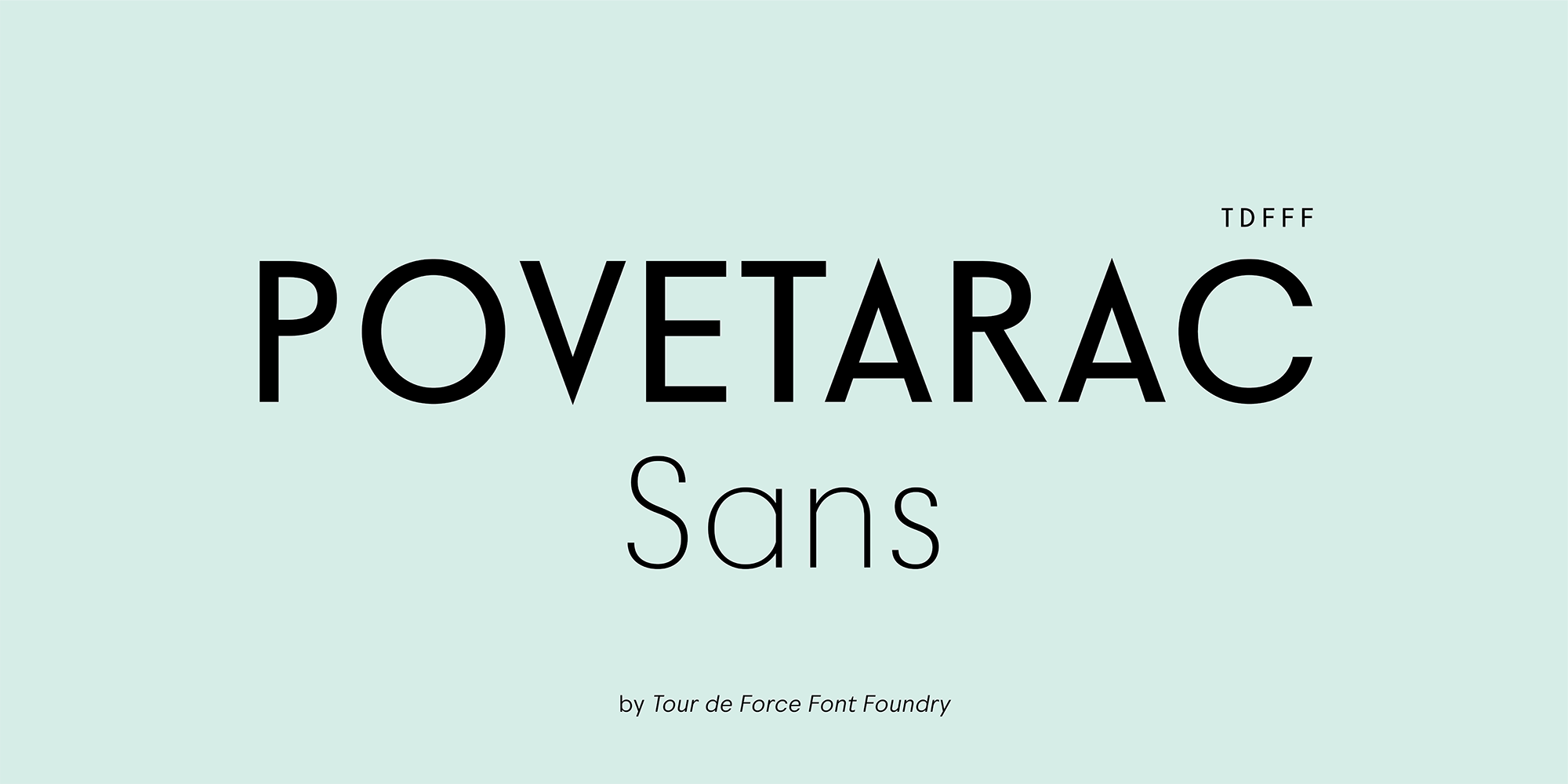
The Povetarac Sans Font Free Download is a refreshingly modern and highly legible sans-serif typeface, making it an excellent choice for designs that prioritize clarity, contemporary aesthetics, and subtle sophistication. This versatile font is perfectly suited for web design, user interfaces (UI/UX), mobile applications, corporate branding, editorial content, and digital advertising. Imagine it providing the crisp, clean text for a cutting-edge tech startup's website, ensuring effortless readability in a detailed infographic, or giving a polished, minimalist feel to a modern art exhibition catalog. Its balanced proportions and unadorned forms ensure your message is communicated effectively and elegantly across all mediums.
What makes Povetarac Sans Font truly exciting is its ability to blend unobtrusive design with a distinct, modern character. It's not just another neutral sans-serif; it possesses a subtle refinement and a meticulously crafted structure that allows it to integrate seamlessly into diverse design contexts while maintaining a professional and contemporary presence. Its robust construction ensures it performs beautifully in both large display sizes and small body text, making it a reliable and adaptable choice for any project. Designers will appreciate its understated elegance and how it provides a solid yet stylish foundation for any visual communication, allowing the content to take center stage.
The Povetarac Sans Font family typically offers a comprehensive range of weights and styles, making it exceptionally flexible for creating sophisticated typographical hierarchies and nuanced visual expressions. You can often find a wide spectrum of variations, including Thin, Light, Regular, Medium, SemiBold, Bold, ExtraBold, and Black, providing extensive control over visual emphasis and typographic texture. Most comprehensive versions also include corresponding Italic styles, further enhancing its utility for varied design needs, from subtle emphasis to dynamic headlines. These extensive options ensure that the Povetarac Sans Font Free Download is an invaluable asset for designers seeking a dependable, high-quality, and aesthetically pleasing typeface for virtually any design challenge.